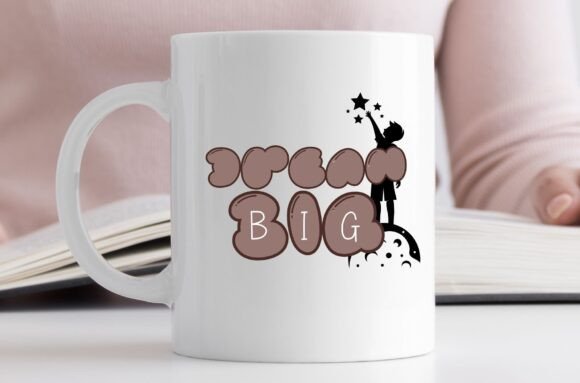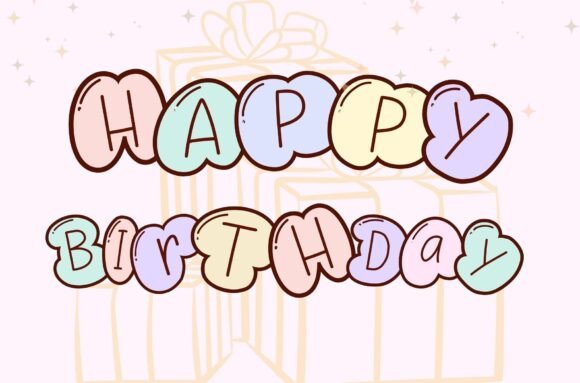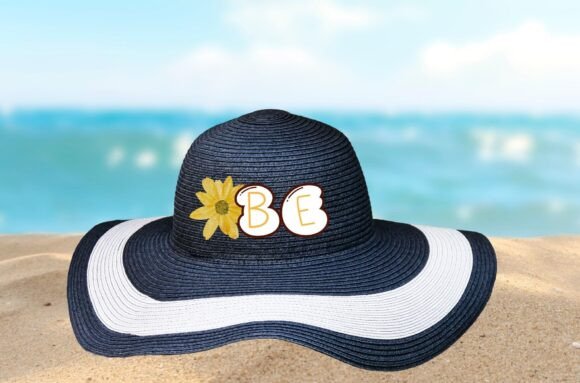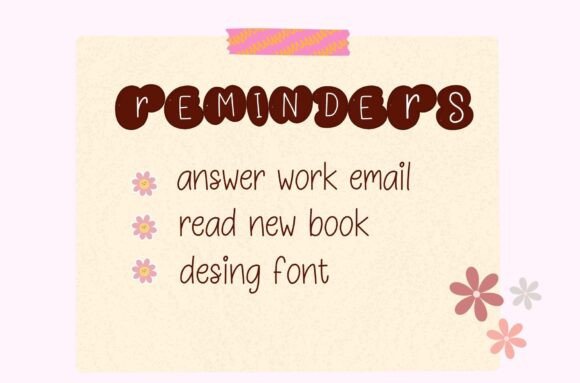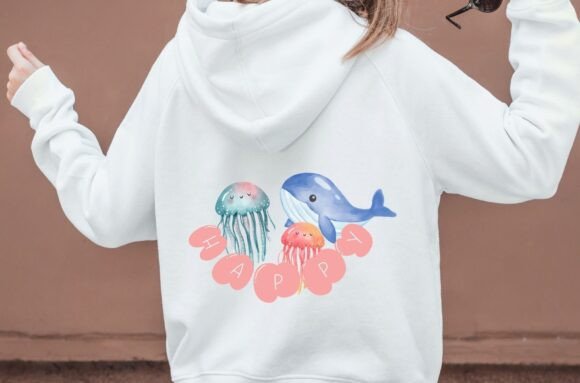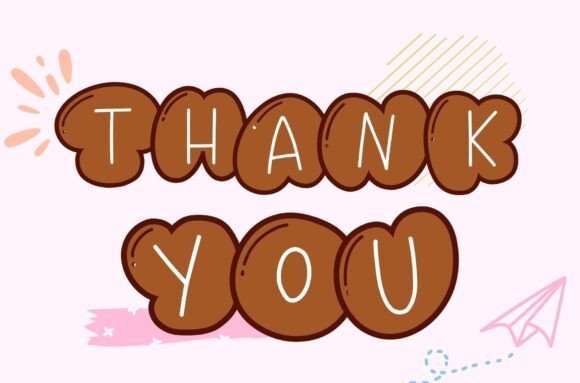
Introduction to Jumbo Bobbles Font Font
Fonts play a crucial role in design, and the Jumbo Bobbles Font font is a typeface that brings both character and versatility to any project. Whether you’re working on a branding project, a website, or a print design, the Jumbo Bobbles Font font offers a unique style that can elevate your work.
Jumbo Bobbles is a handwritten font.
You can use it for logos, branding, wedding invitations, business cards, greeting cards, posters, magazines, social media, planner prints, and websites It is especially useful for childrenβs designs, t-shirts, mugs, posters, and more.
Key Features of Jumbo Bobbles Font Font
Why Choose Jumbo Bobbles Font Font?
The Jumbo Bobbles Font font is more than just a typeface β it’s a design tool that helps you communicate your message with style and clarity. Its unique character set and versatile design make it suitable for a wide range of applications, from elegant invitations to bold headlines.
With its carefully crafted letterforms and balanced proportions, the Jumbo Bobbles Font font ensures readability and visual appeal across all mediums.
What makes Jumbo Bobbles Font font special?
The Jumbo Bobbles Font font stands out with its unique design, exceptional readability, and versatility across various design applications.